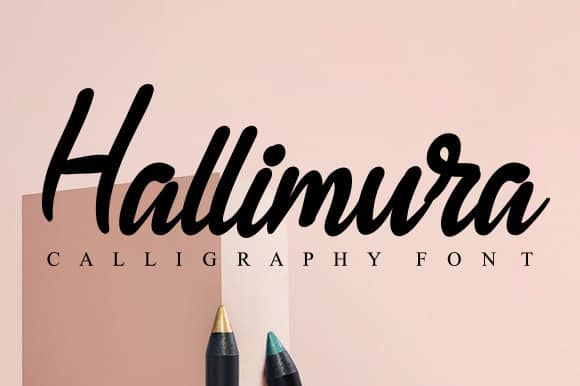
Hallimura Script Font
Hallimura Script Font is the latest style letters are perfect for wall displays, wedding invitations, social media post logos, advertisements, product packaging, product designs, labels, photography, watermarks, invitations, stationery, and any project that requires taste handwriting.